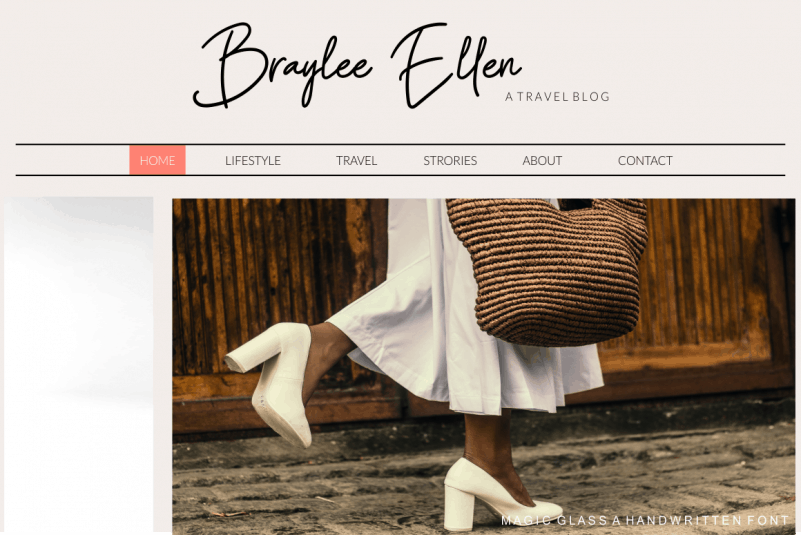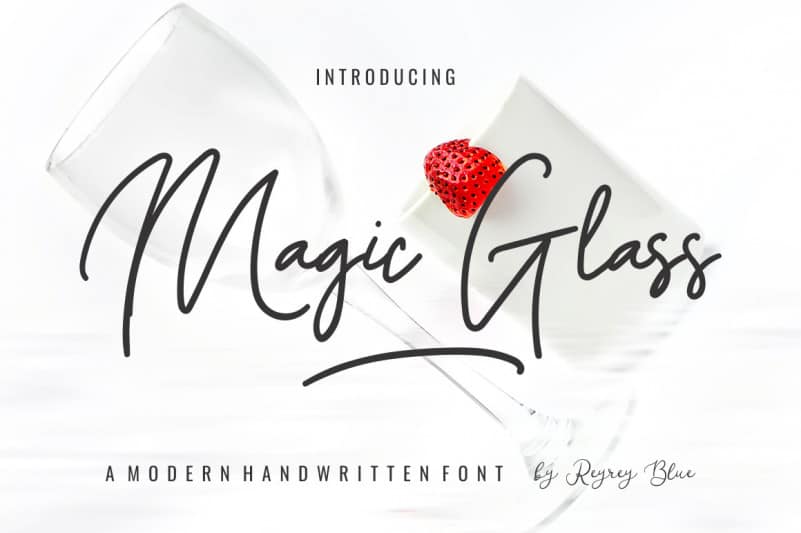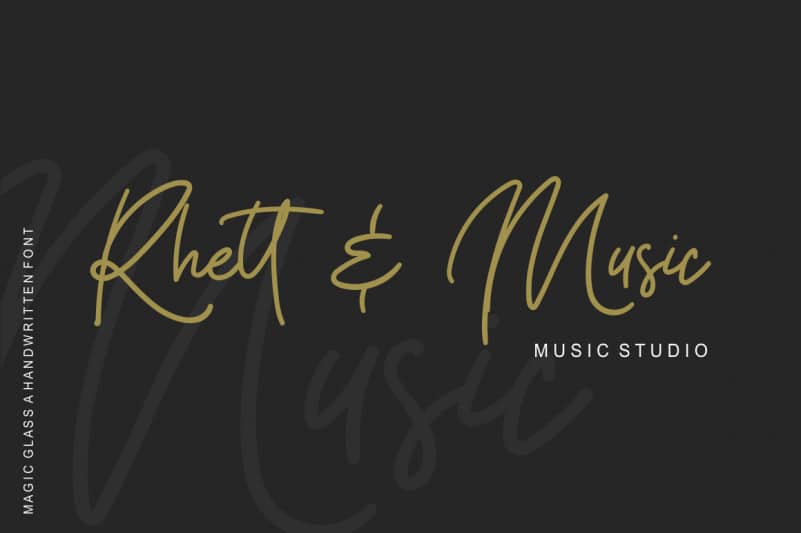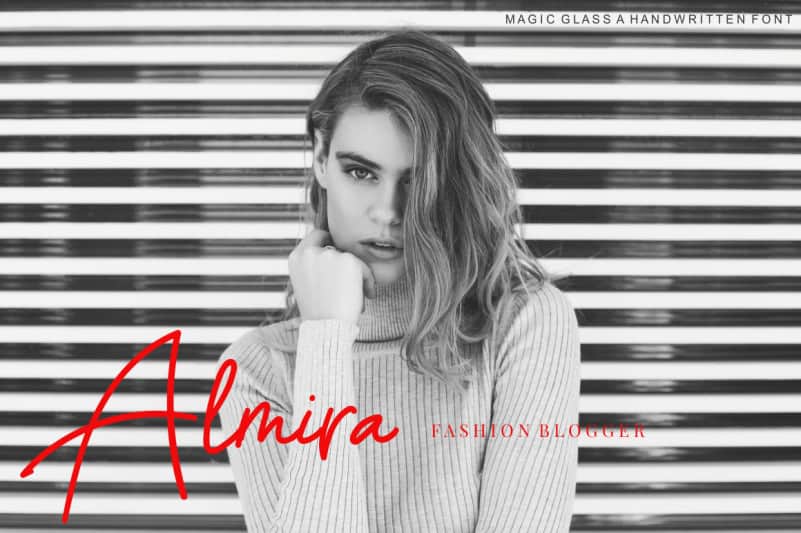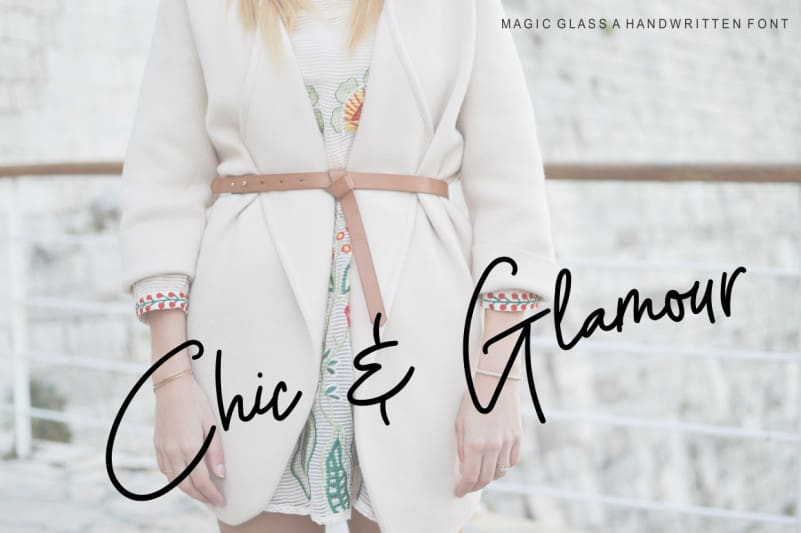
Magic Glass Handwritten Font is an exquisite handwritten font, masterfully designed to become a true favorite. Magic Glass Handwritten Font maintains its classy calligraphic influences while feeling contemporary and fresh. Fall in love with it and bring your projects to the highest levels!